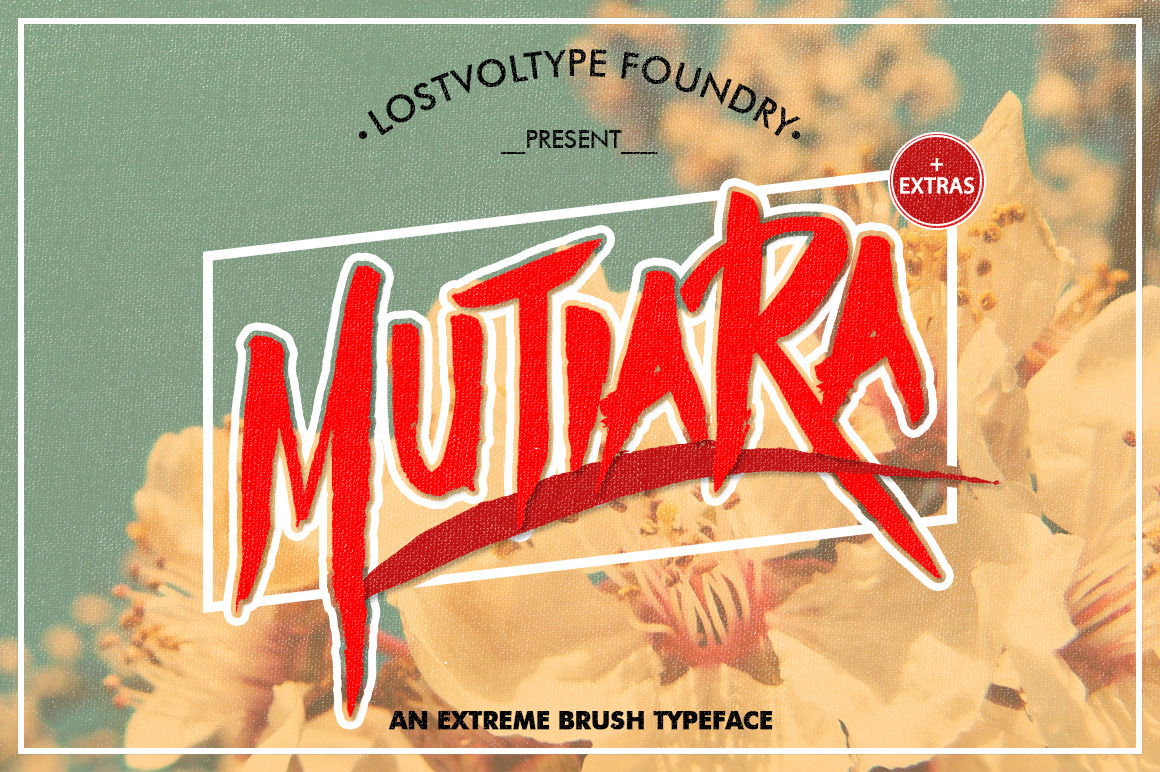
Mutiara is a new typeface, Created from original brush with extreme style. Combine between uppercase & lowercase to create a great type. Extra’s format available .AI & Eps